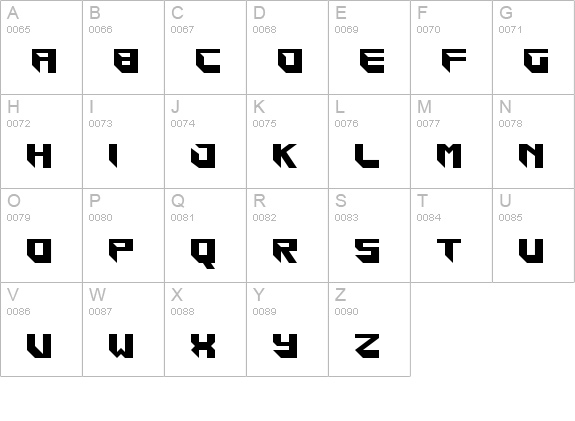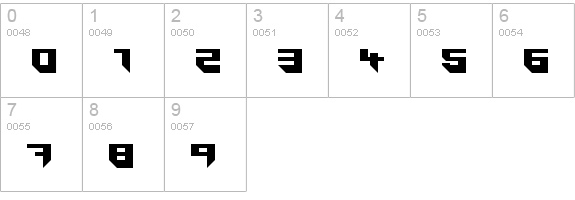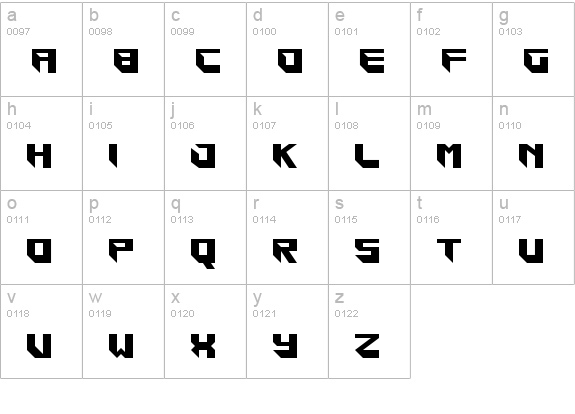
Blockar Font Details
Blockar font is a modern and stylish typeface that exudes a sense of strength and stability. With its bold and geometric design, this font is perfect for creating eye-catching headlines, logos, and posters. The clean lines and sharp edges give Blockar a contemporary look that is sure to make your designs stand out. Best of all, Blockar font is completely free to download at FontsMarket.com. Whether you're working on a personal project or a professional design, you can easily access this versatile font without breaking the bank. Don't miss out on the opportunity to add Blockar to your font collection and take your designs to the next level.